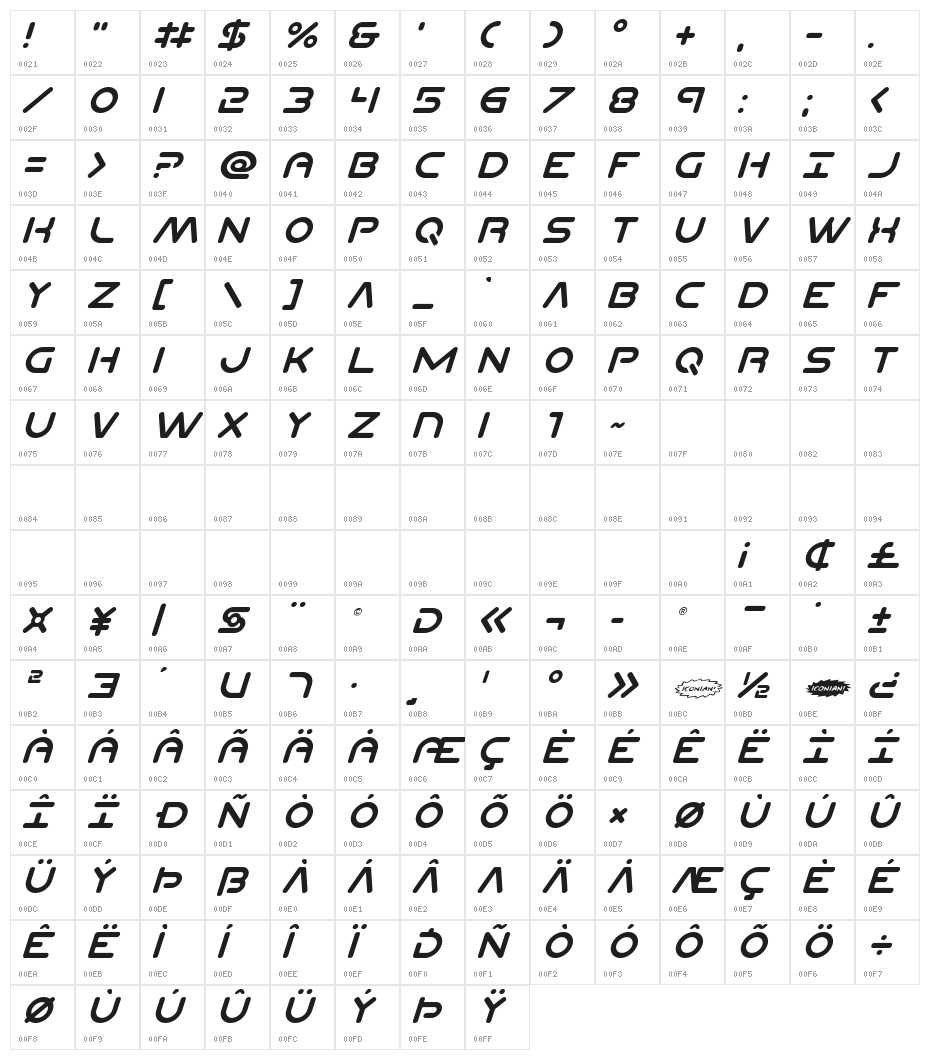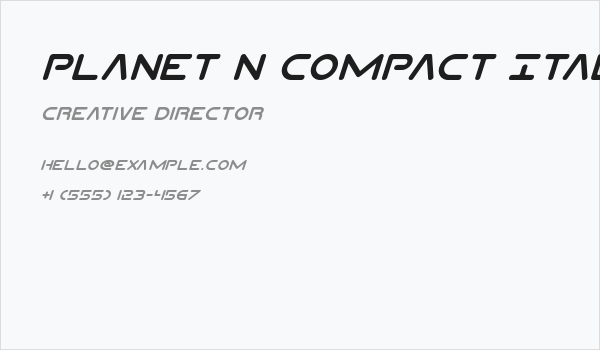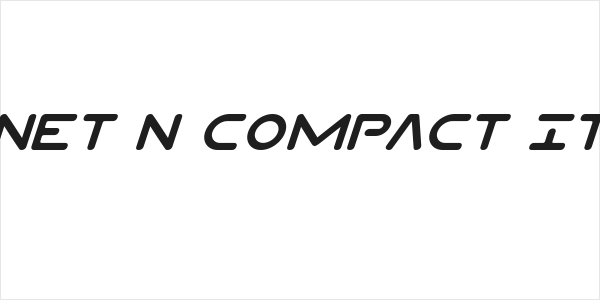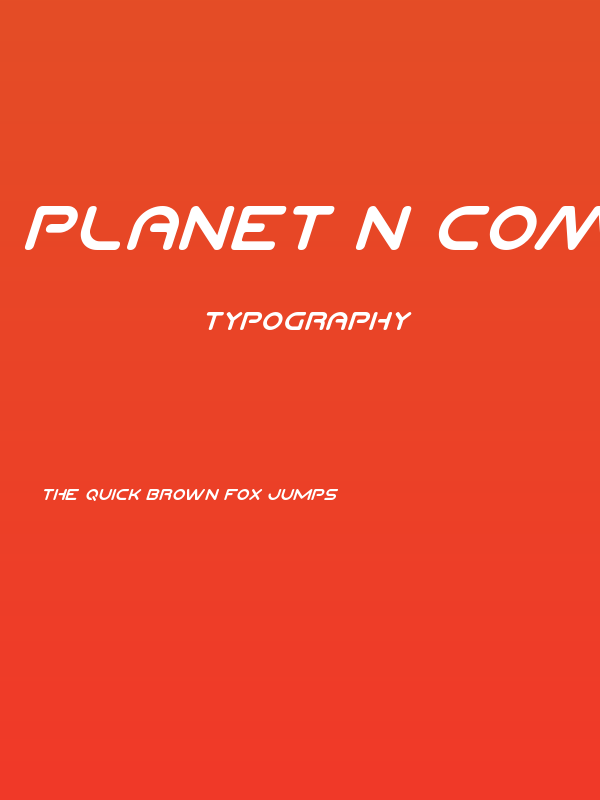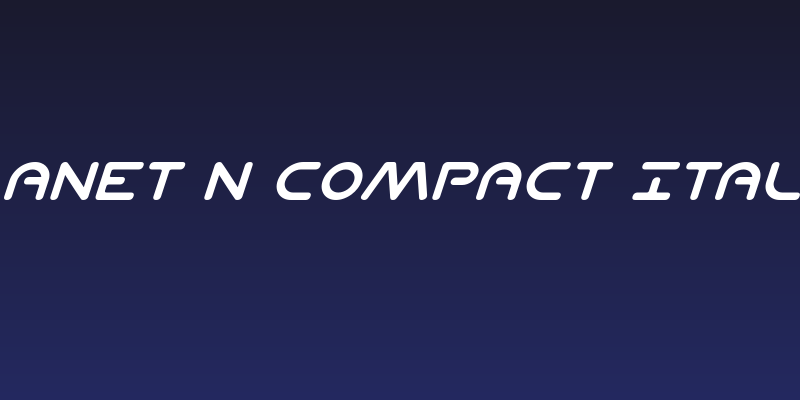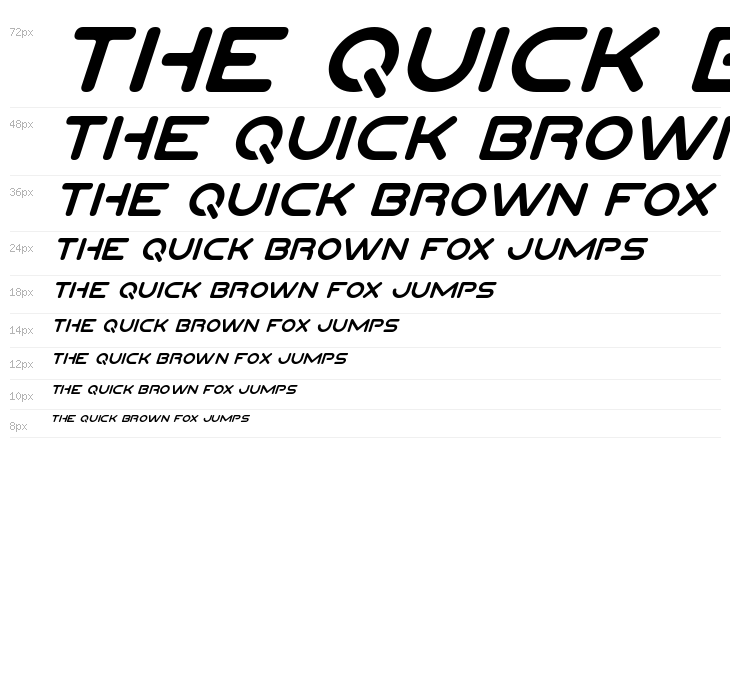
Planet N Compact Italic Font
Planet N Compact Italic Description
This font features a sleek, modern design with a distinct italic slant, giving it a dynamic and forward-moving appearance. The characters are compact and slightly condensed, contributing to a streamlined look. The strokes are consistent in weight, offering a medium contrast that enhances readability while maintaining a stylish edge. The rounded edges and smooth curves of the letters add a touch of softness, balancing the overall geometric structure. This font is versatile, suitable for both digital and print media, and can be used to convey a sense of innovation and modernity.
| Use Case | Headlines, Logos, Digital interfaces |
| Proposed Projects | Ideal for tech branding, futuristic designs, digital interfaces, and modern advertising. |